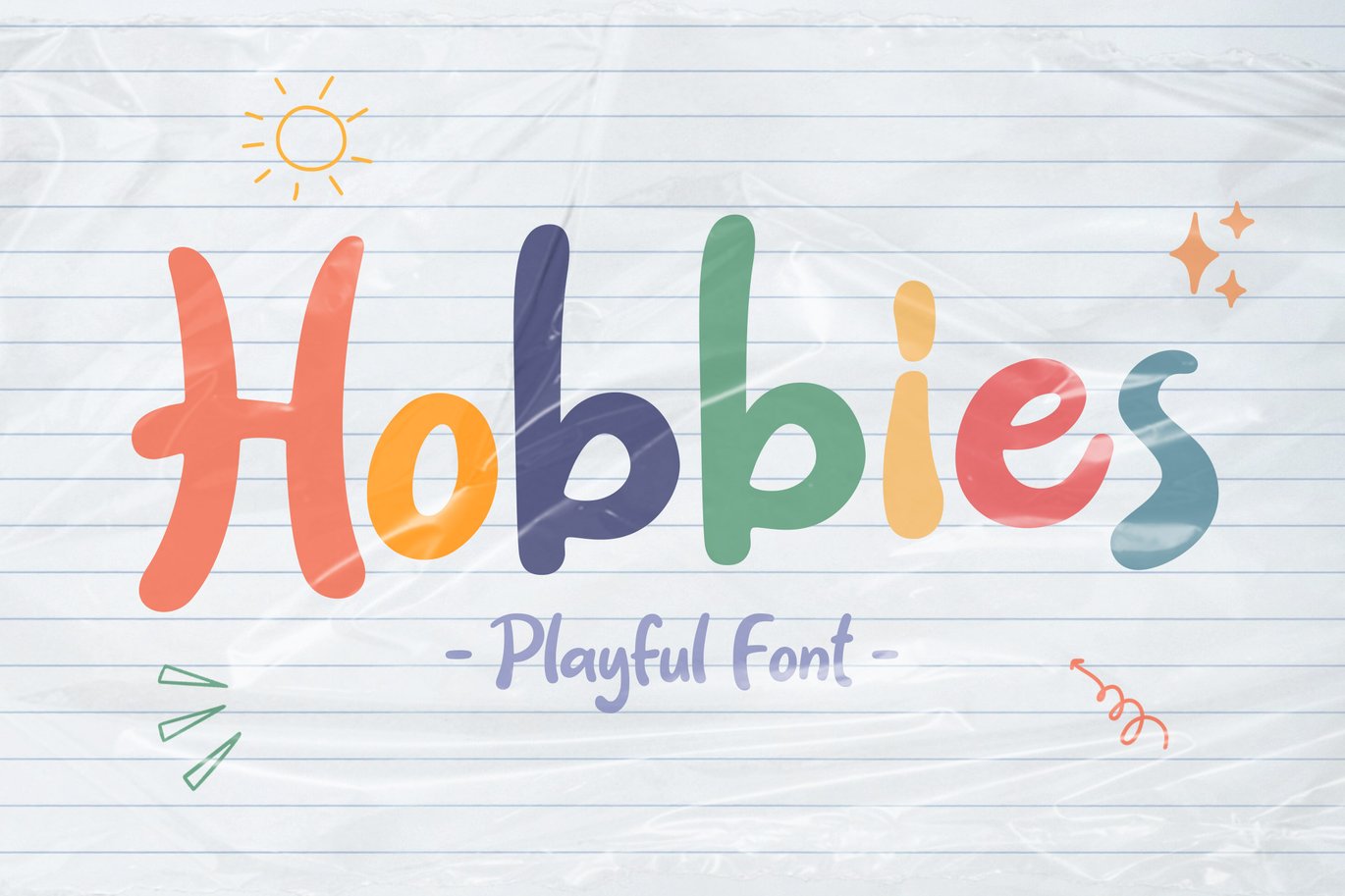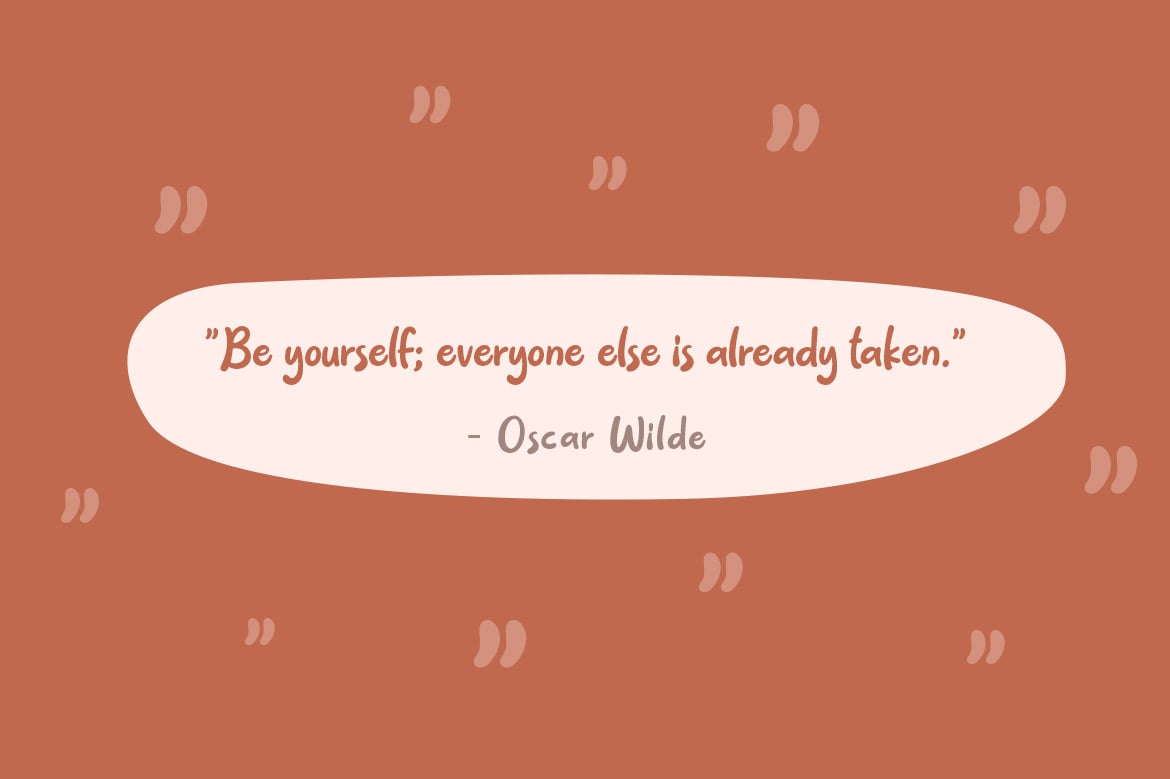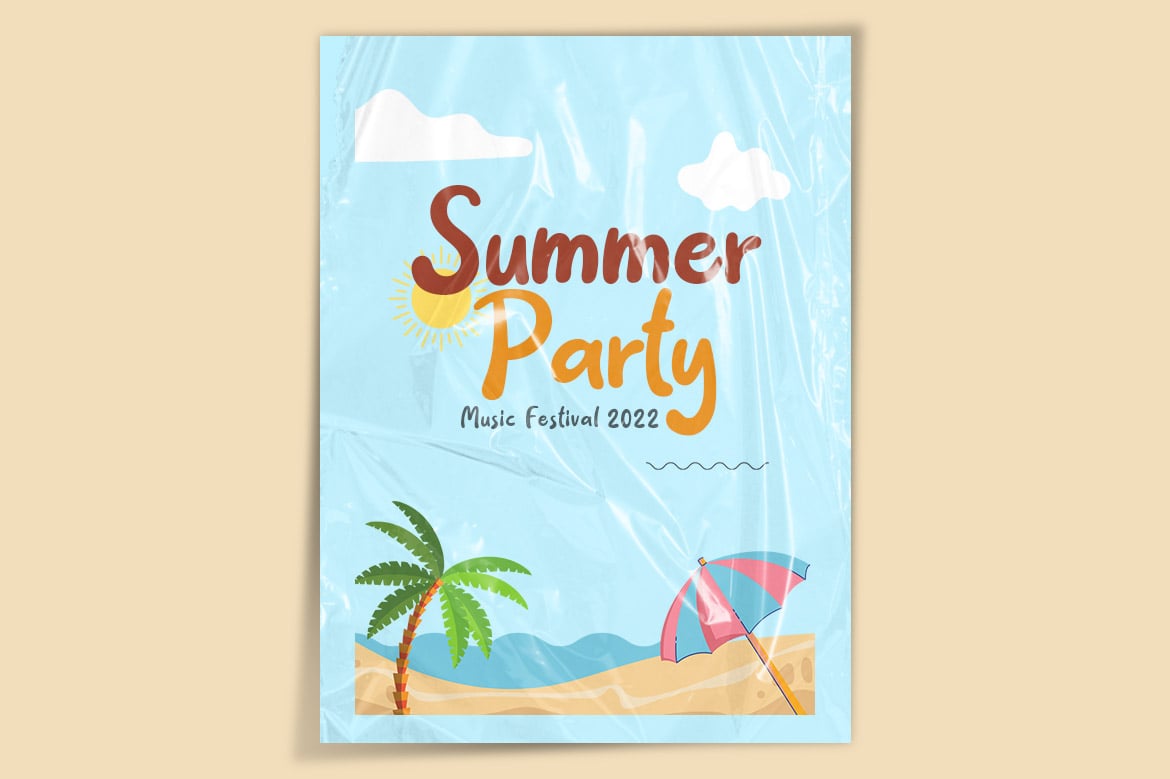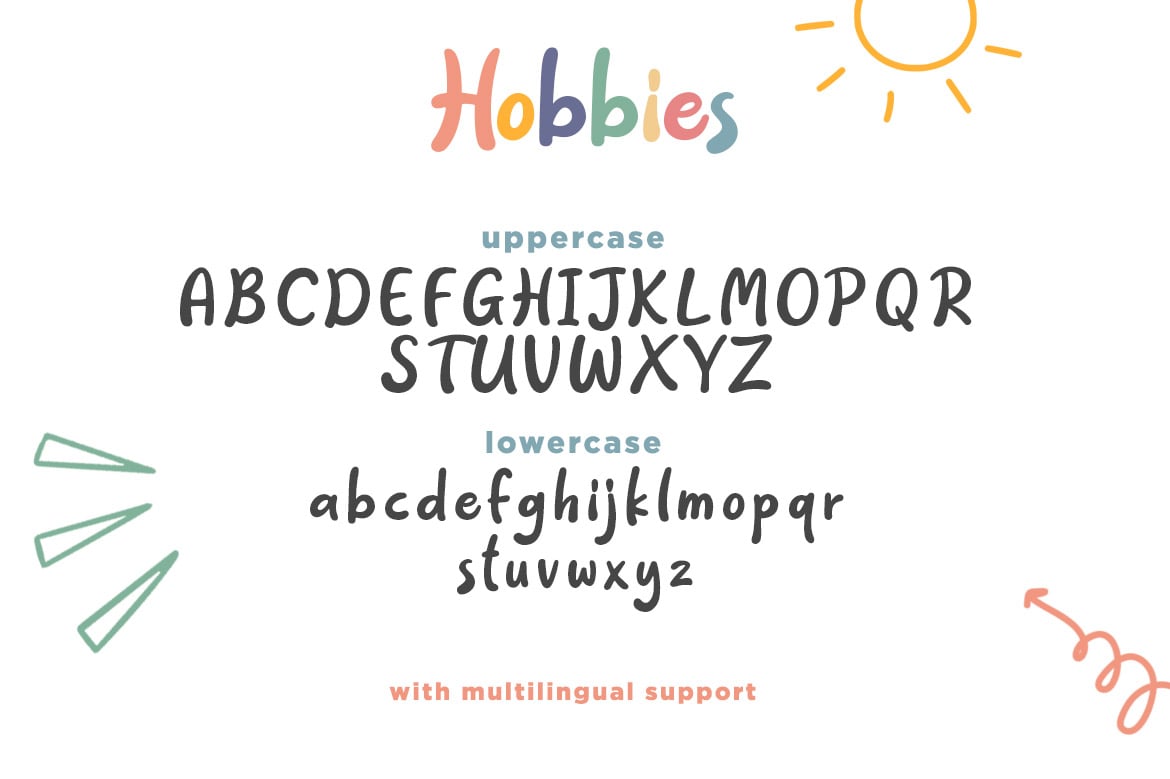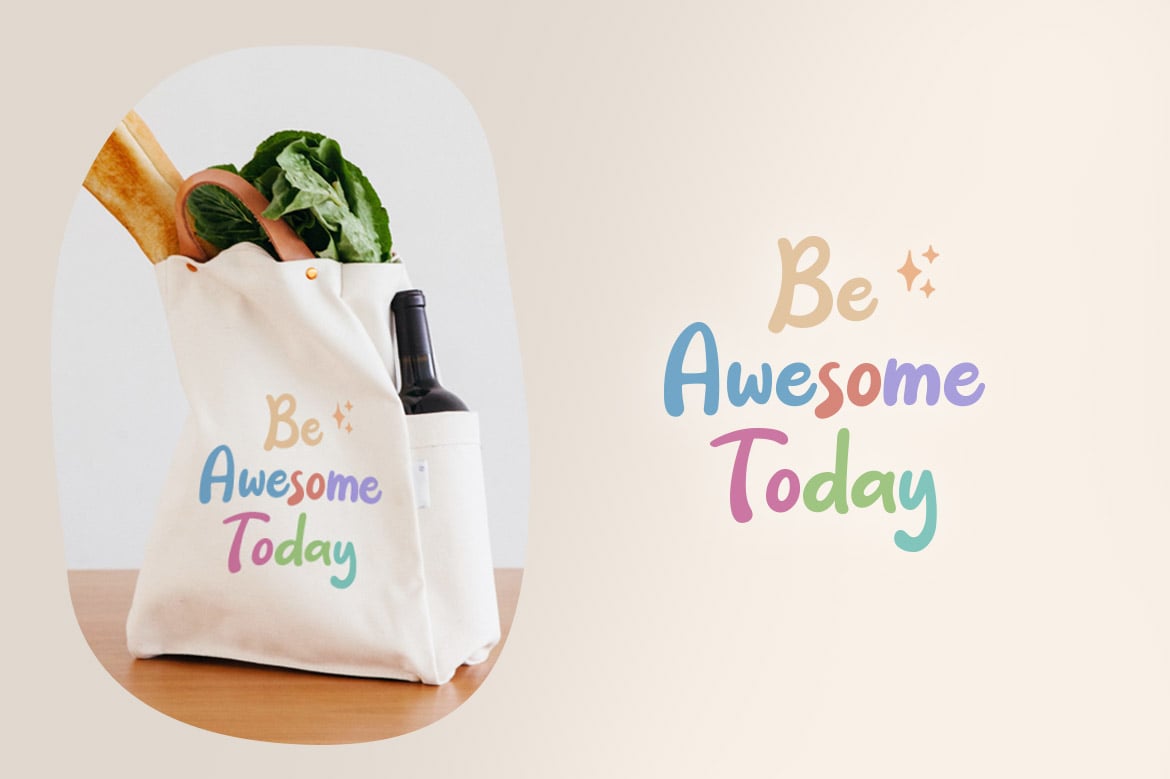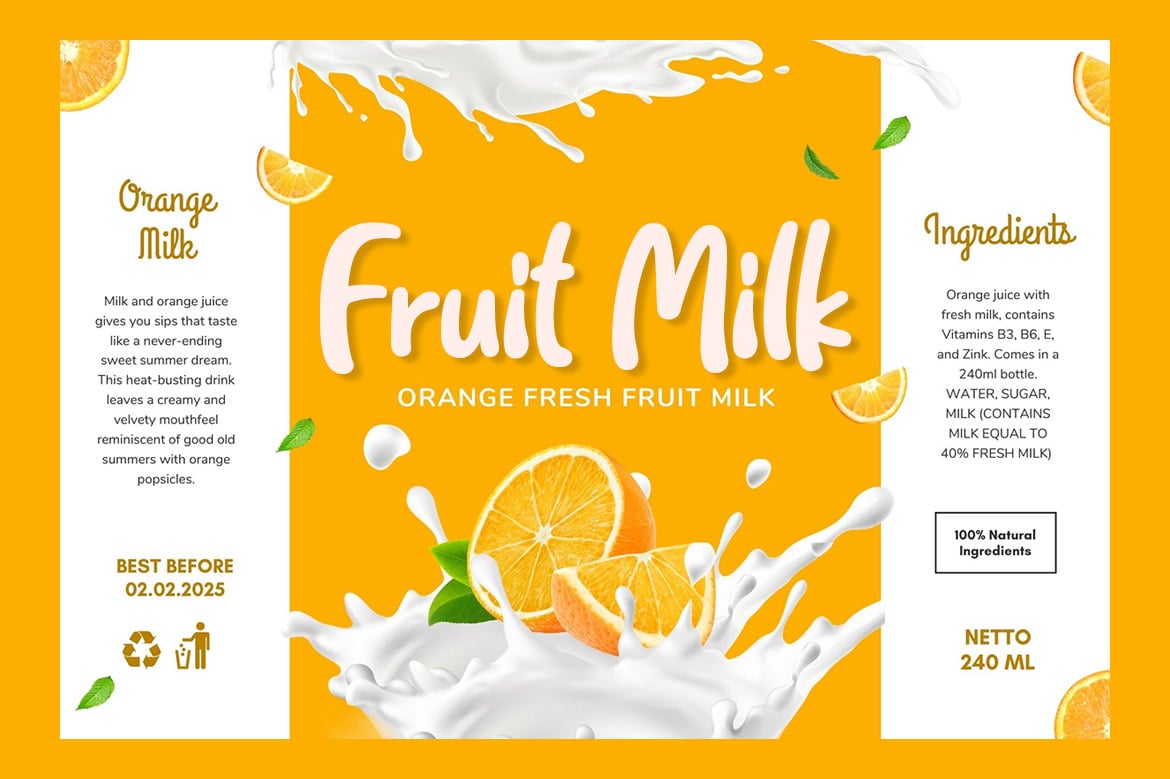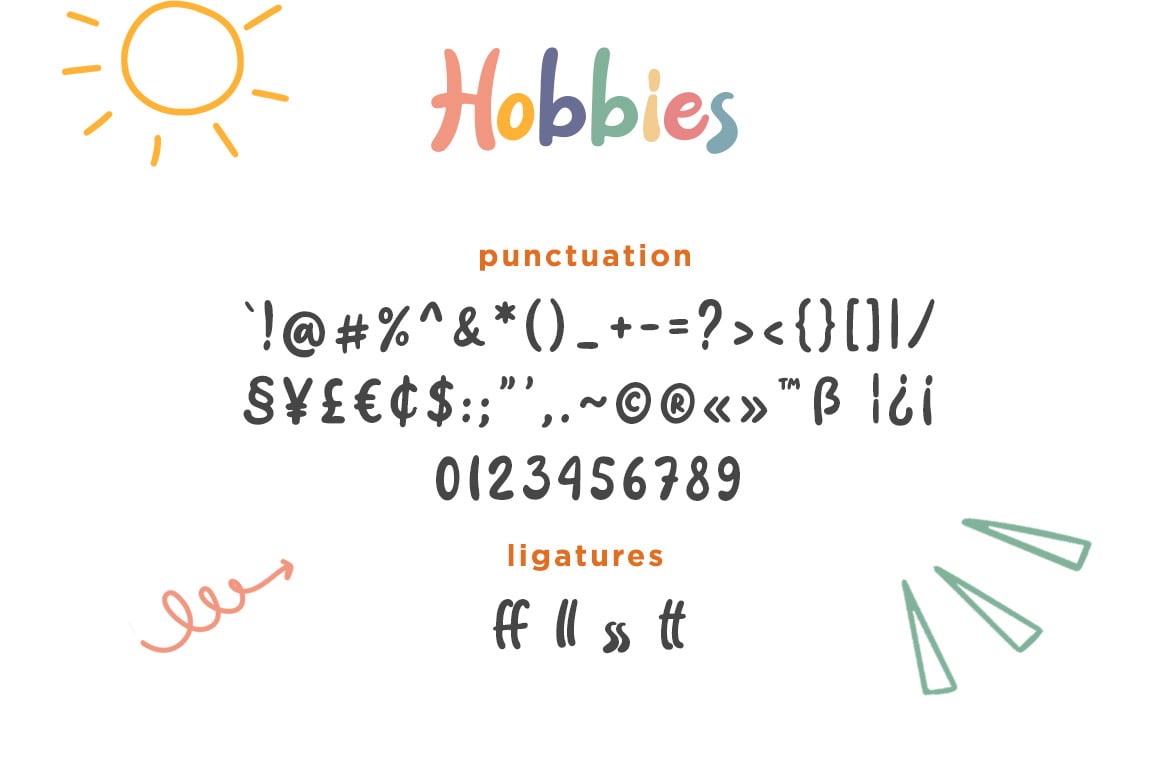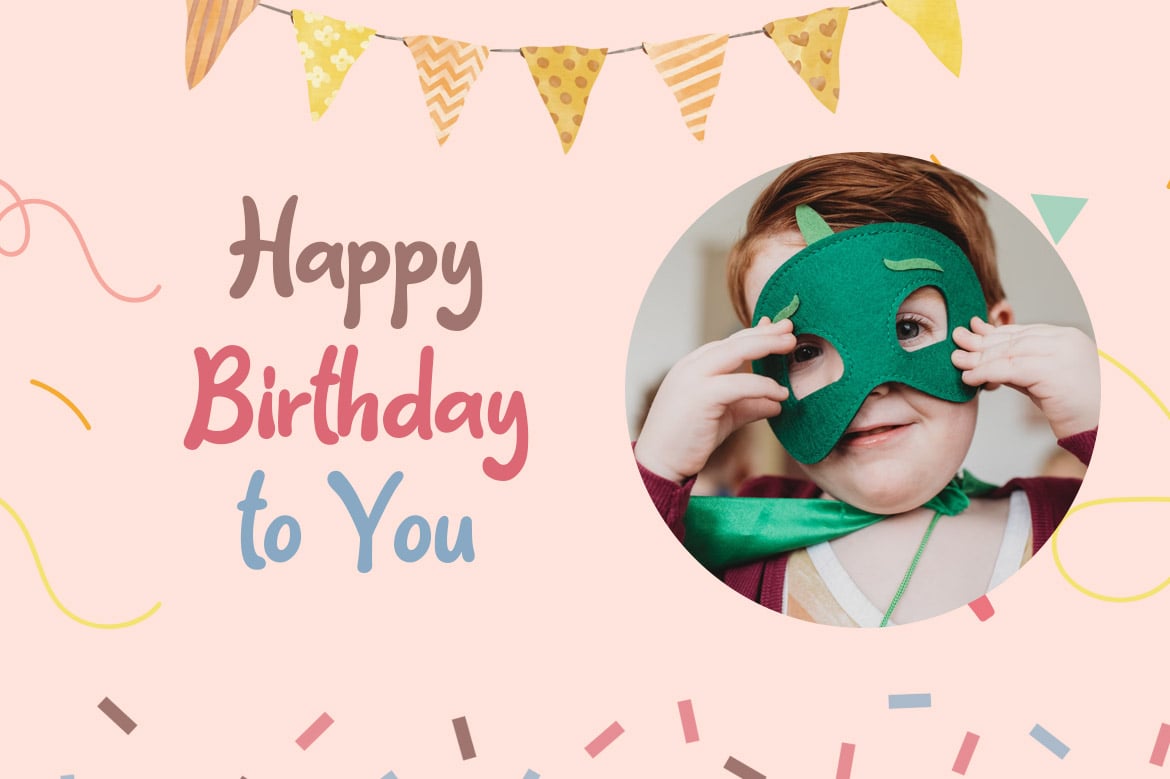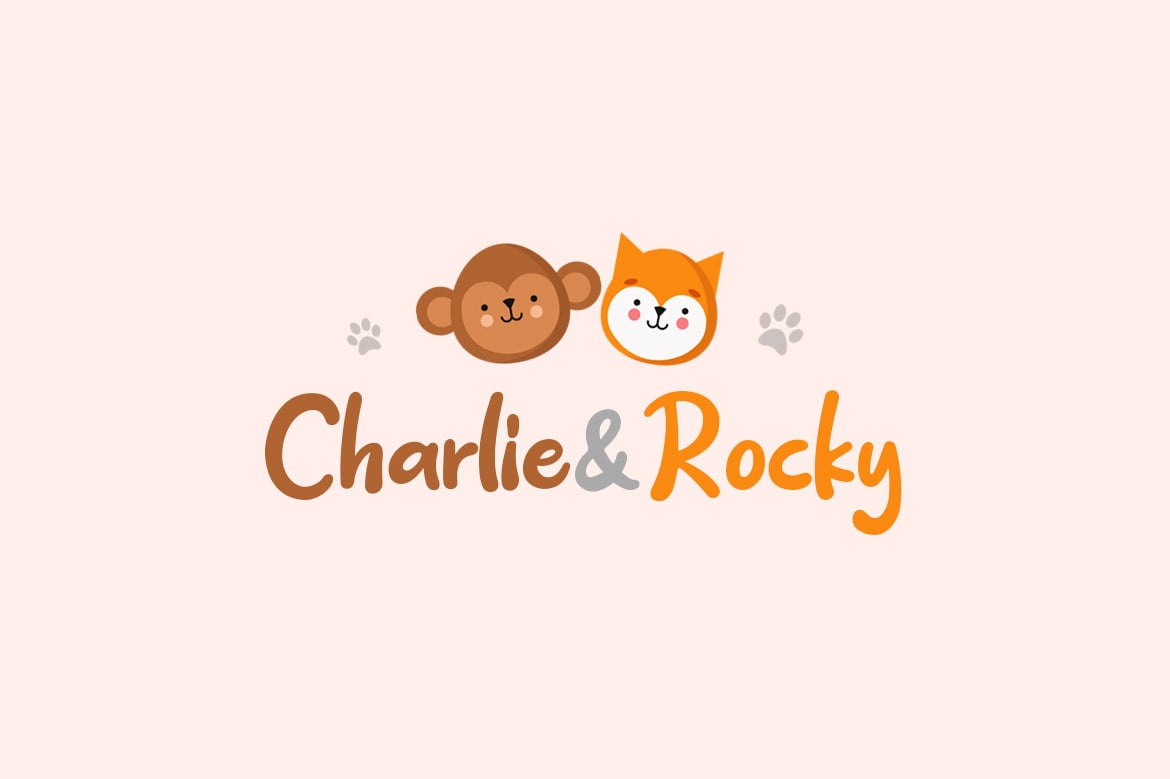
Hobbies – Playful Font
Introducing Hobbies – Playful Font, a new font with the style of fun and doodle. Which is you can create a cute and fresh design.
Hobbies is very suitable for logo design, kids t-shirts, birthday cards, cover books, magazines, flyers, quotes, packaging, and of course much more.
This font comes in uppercase, lowercase, punctuations, ligatures, symbols & numerals, and multilingual support. With OTF, TTF, WOFF, WOFF2 format.